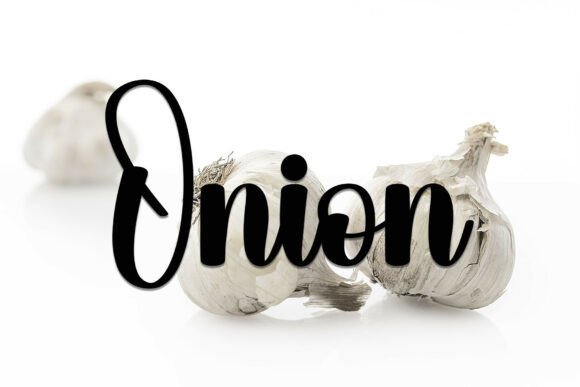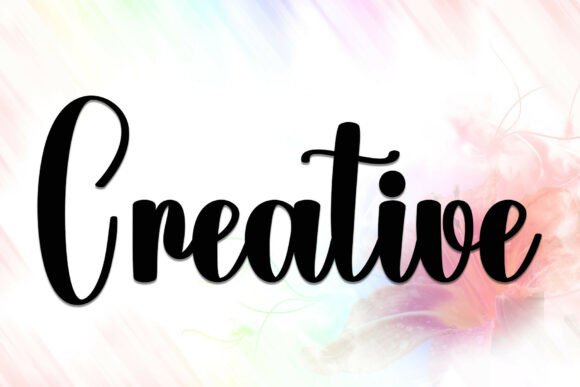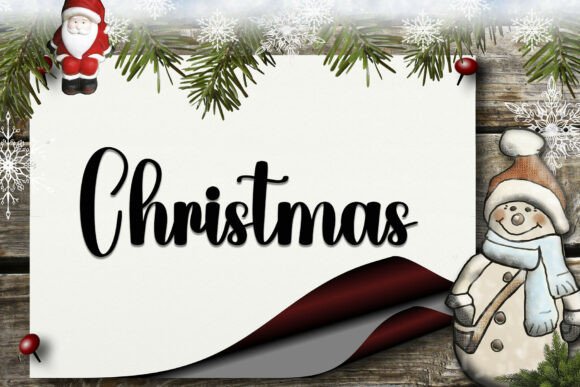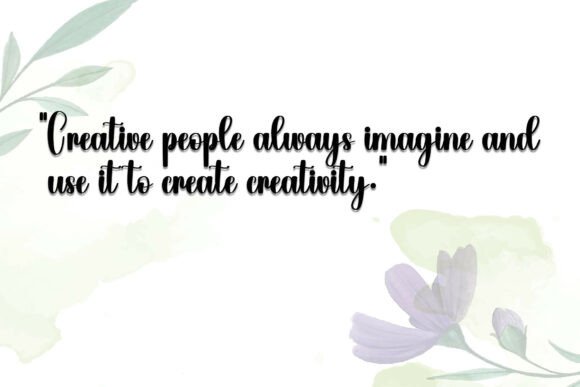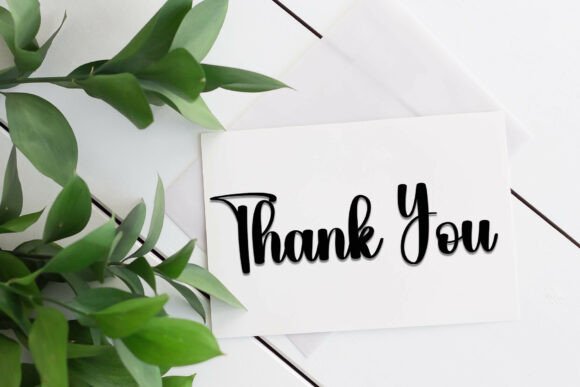
The Daisy Font: A Delicate Handwritten Gem for Creative Projects
I still remember the time I was working on a project for a client who needed a custom invitation design for their baby shower. I had all the elements ready – the graphics, the colors, the layout – but I was stuck on finding the perfect font. That’s when I stumbled upon the Daisy font, and it instantly became the star of the show. In this article, I’ll share my experience with this beautiful font, its features, and how to make the most of it in your creative projects.
An Honest Review of Daisy Font
So, what makes the Daisy font so special? Let’s dive into the good stuff and some minor quirks I’ve discovered while working with it.
What I Love About Daisy Font
- ✨ Delicate and elegant handwritten style that’s perfect for a variety of projects
- 💕 Beautifully crafted to evoke a sense of whimsy and charm
- 🌈 Versatile and can be used for letters, invitations, food products, titles, and more
Some Quirks to Keep in Mind
While the Daisy font is a stunning addition to any project, there are a few minor limitations to be aware of:
- 🤔 Limited availability of stylistic alternates, which might not offer as much flexibility for some users
- ⚠️ Not ideal for body text due to its delicate nature; it’s best suited for headings, titles, or short paragraphs
One of the exciting aspects of the Daisy font is its support for OpenType features. These features allow you to access additional glyphs, stylistic alternates, and more, giving your text a unique touch. For example:
- Accessing stylistic sets for varied letterforms
- Using ligatures for a more artistic text appearance
- Exploring the full range of glyphs for decorative elements
The Story Behind Daisy Font
The Daisy font was crafted with love by a designer who aimed to create a delicate, yet robust handwritten font. The inspiration came from classic handwritten scripts, infused with a modern twist to make it versatile and unique. The designer’s goal was to create a font that would add a touch of elegance and whimsy to any project.
Q: What type of projects is the Daisy font best suited for?
A: The Daisy font is versatile and can be used for a variety of projects, including letters, invitations, food product labels, titles, and more.
Q: Does the Daisy font support OpenType features?
A: Yes, the Daisy font supports OpenType features, including stylistic alternates, ligatures, and more.